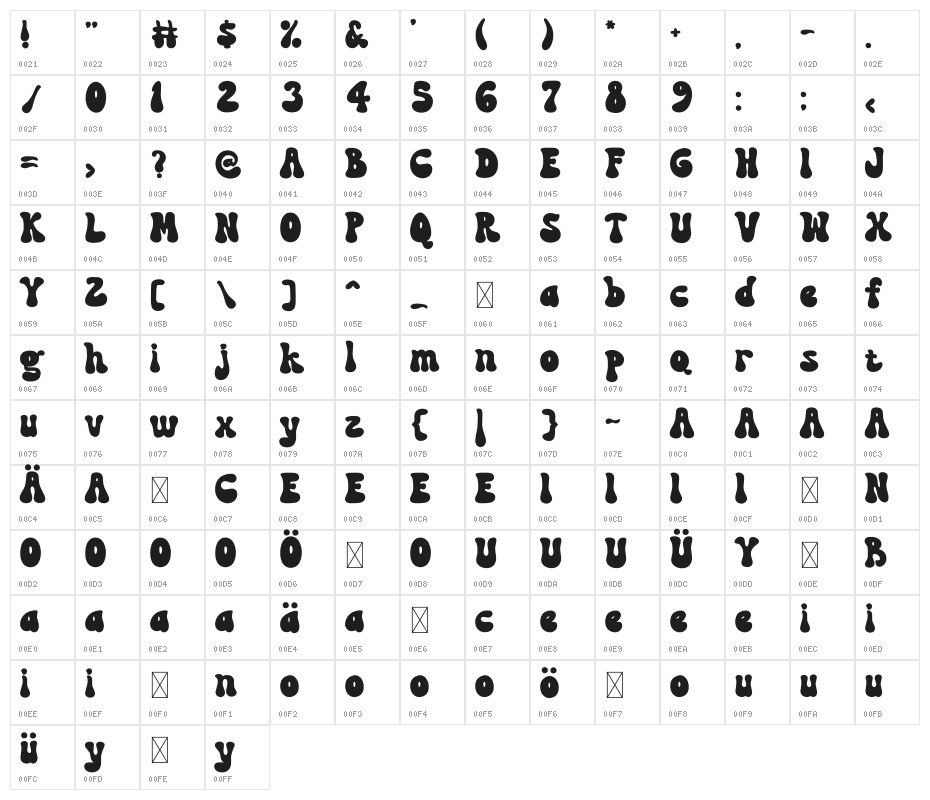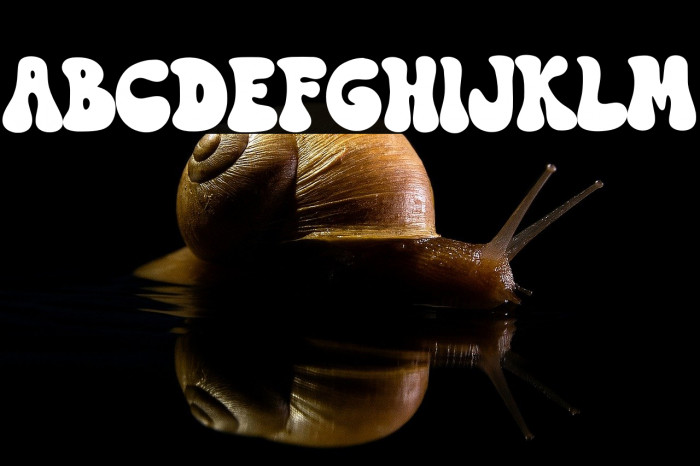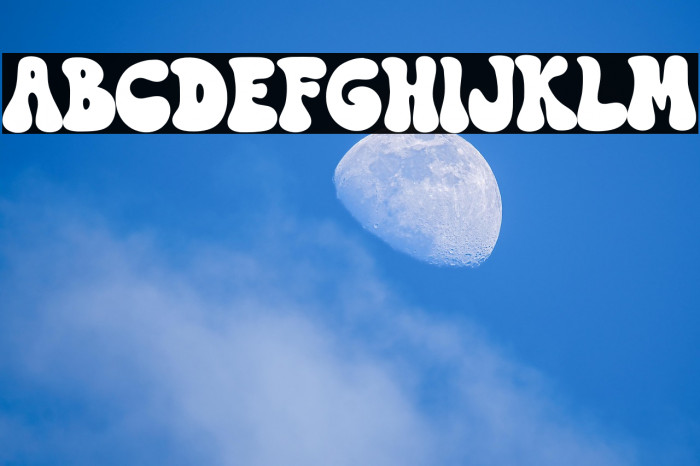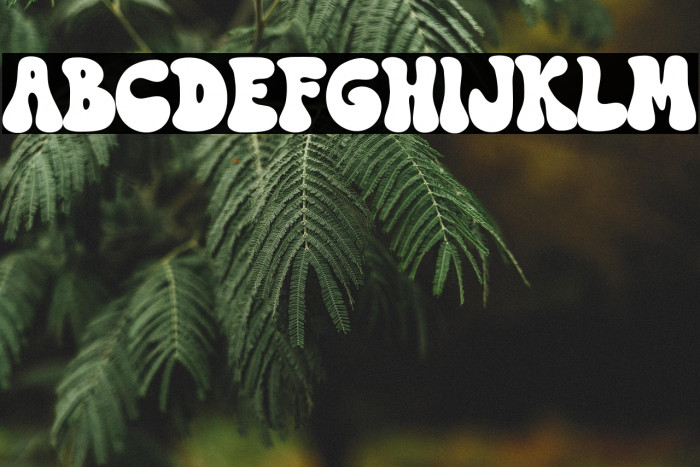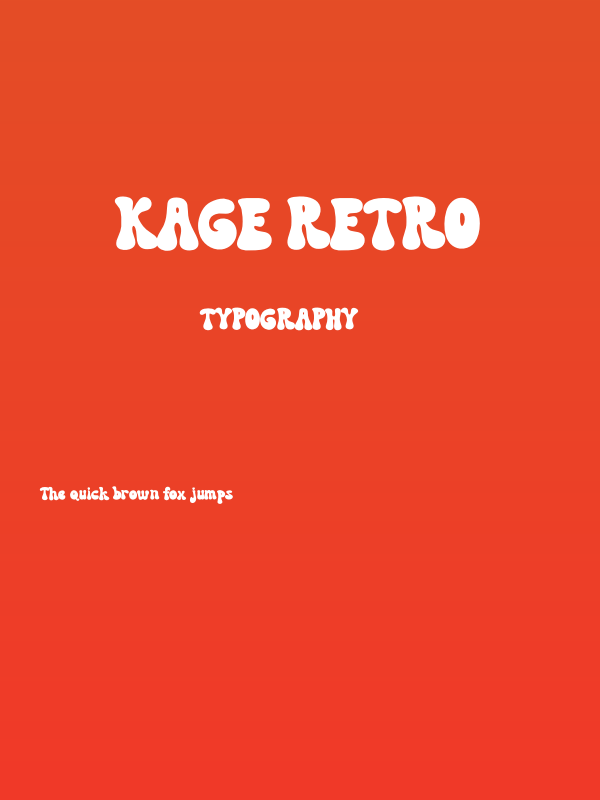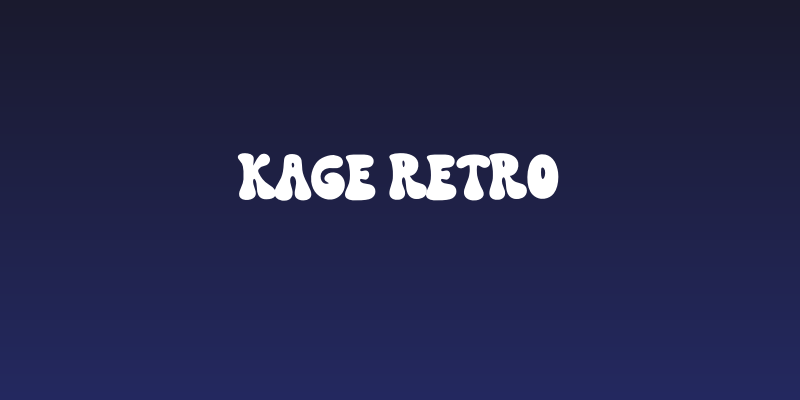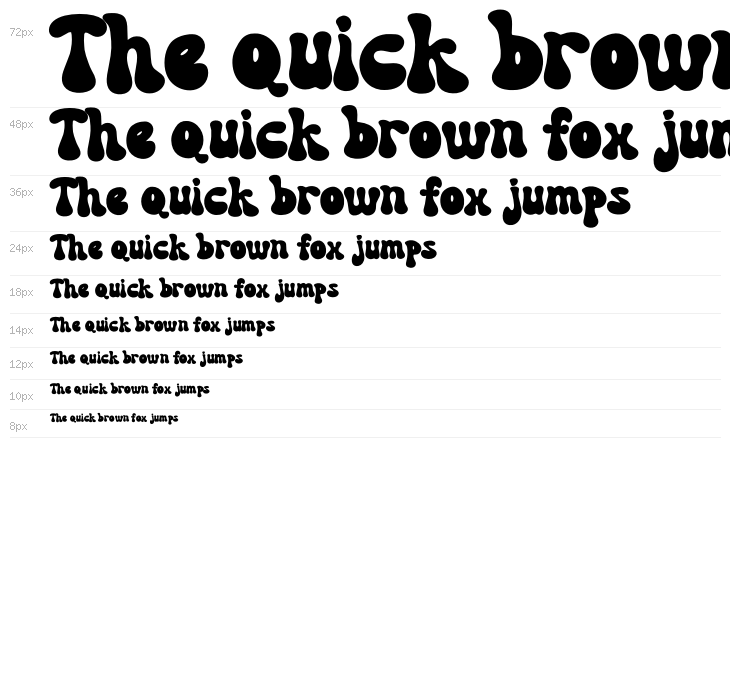
Kage Retro Font
Kage Retro Description
This font features a bold, playful design with thick, rounded strokes that give it a bubbly and retro appearance. The characters are highly stylized, with exaggerated curves and a whimsical feel, reminiscent of 1960s and 1970s design aesthetics. The letters are closely spaced, creating a compact and cohesive look. The numbers and special characters maintain the same playful style, ensuring consistency across all glyphs. This font is ideal for projects that require a fun and eye-catching typeface.
| Overall Style | Retro |
| Proposed Projects | Perfect for retro-themed posters, children's book covers, playful branding, and eye-catching headlines. |